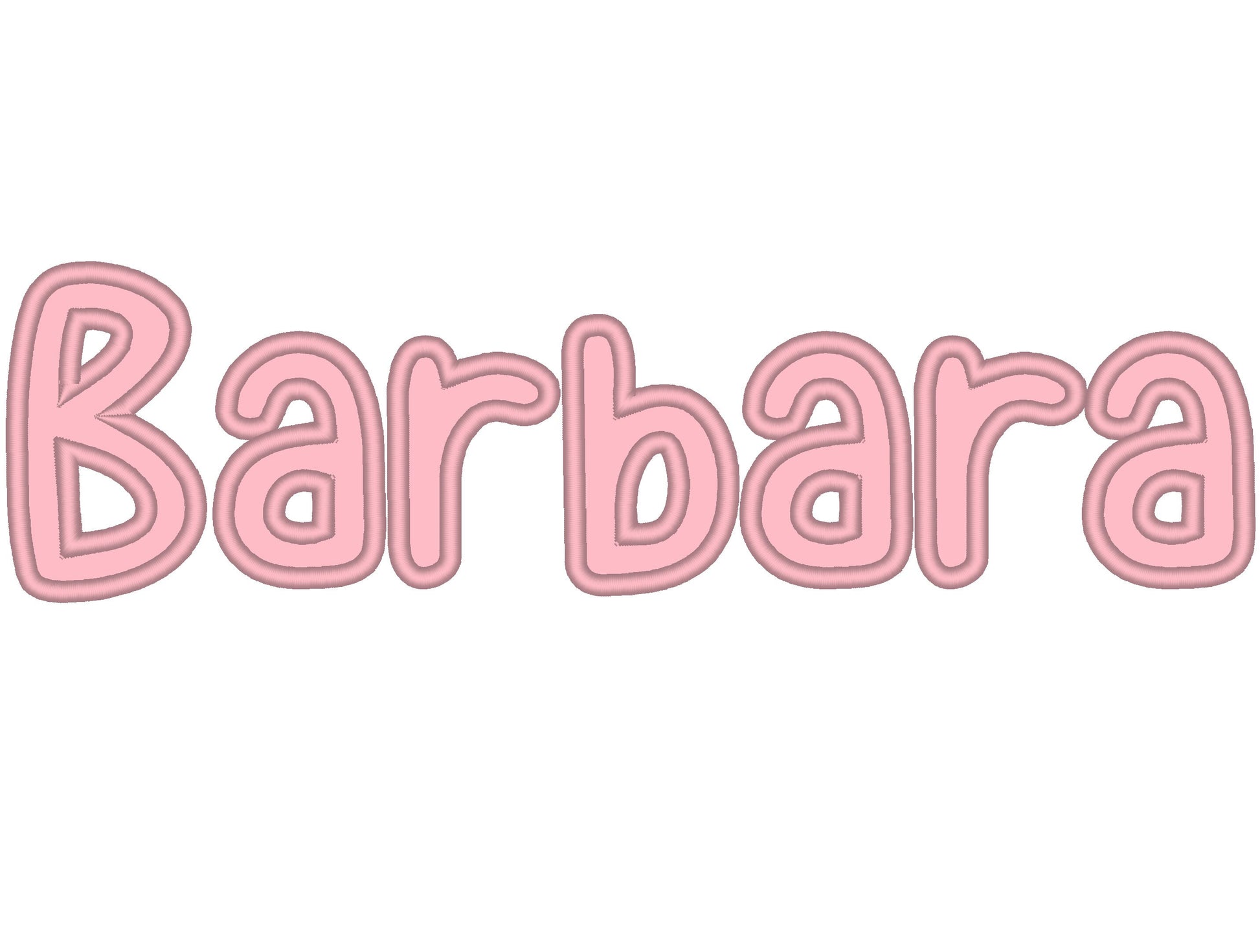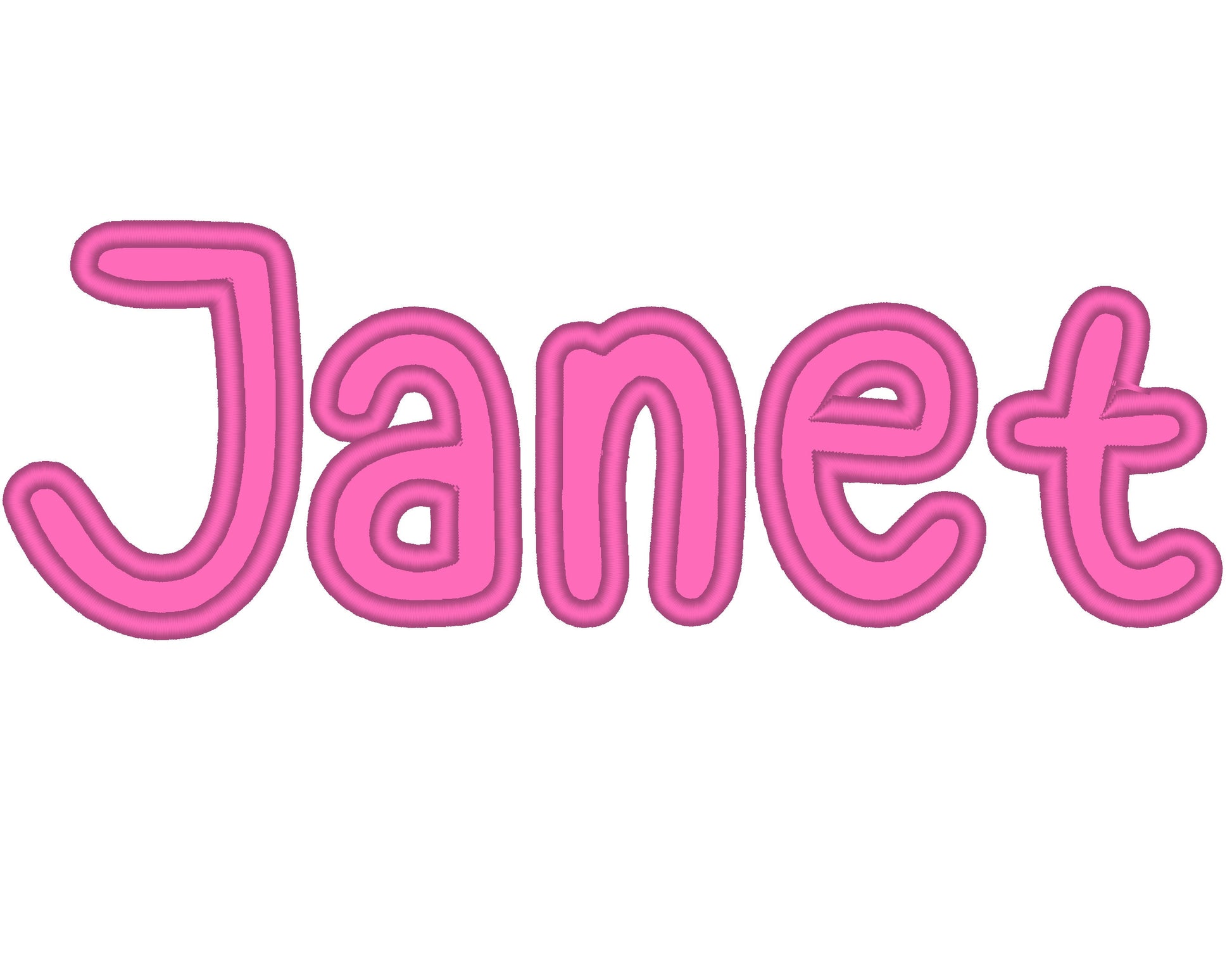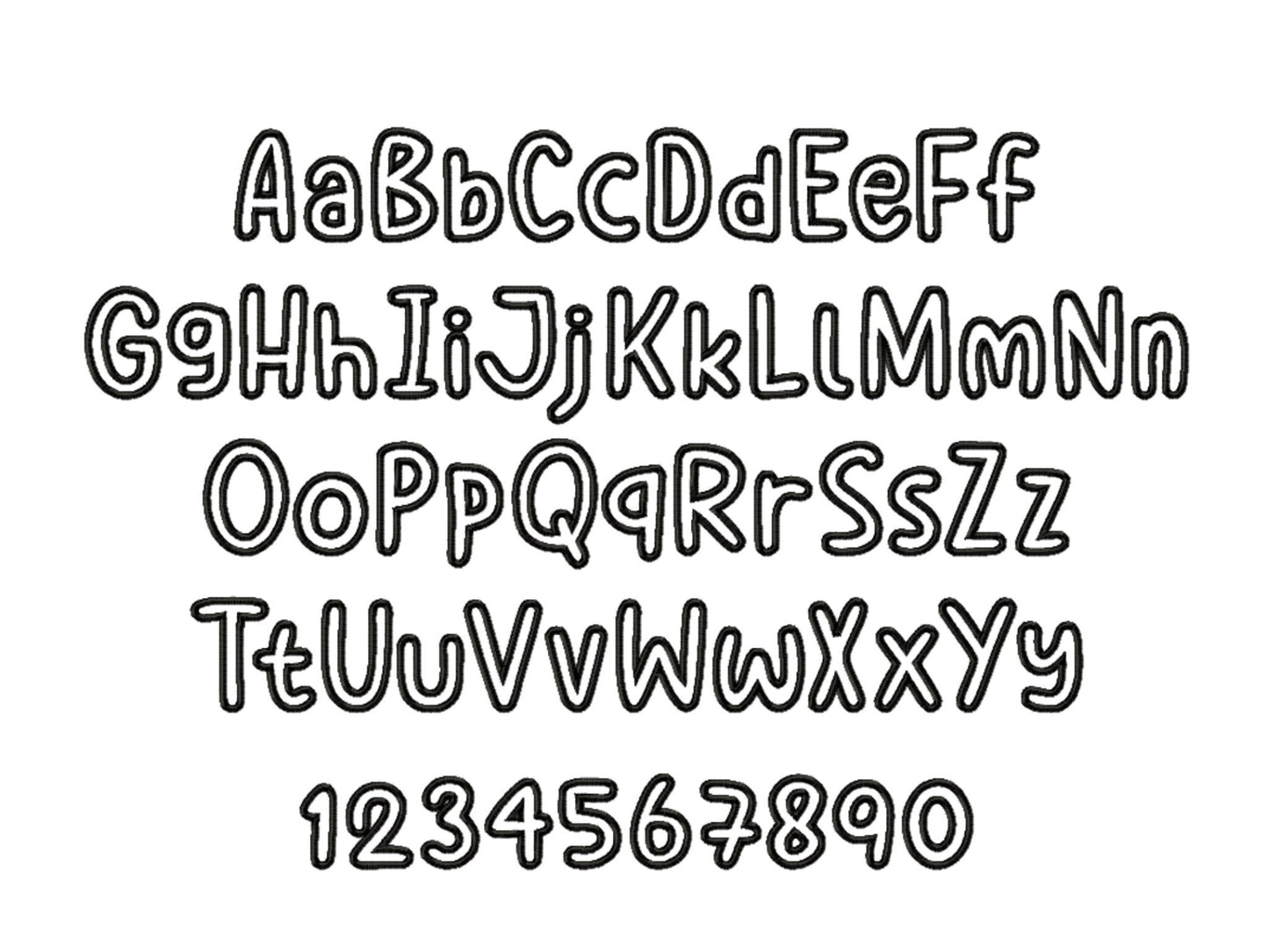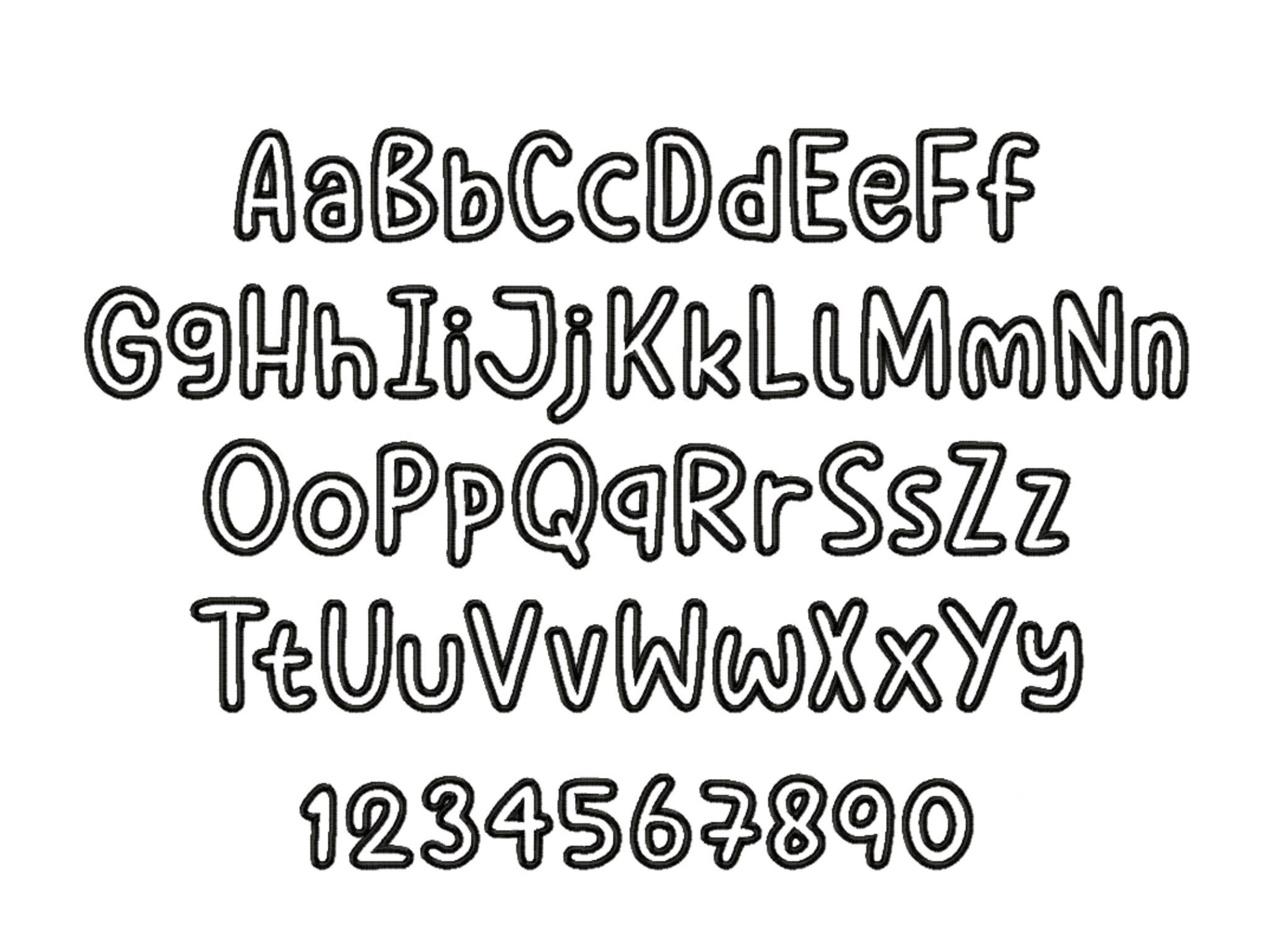
Satin Stitch Outline Applique Font Janet
Or click to open the linkAn applique font with a clean satin stitch outline. Nice for monograms, names, pillows, towels and kids' clothes.
Uppercase and lowercase letters, numbers 0 to 9 and punctuation, in seven sizes: 1.3, 1.7, 2, 2.4, 3, 3.4 and 3.7 inches. Each letter is stitched as applique and finished with a satin edge.
- Satin outline applique font
- Uppercase and lowercase letters, numbers 0-9, punctuation
- 7 sizes, 1.3 to 3.7 in